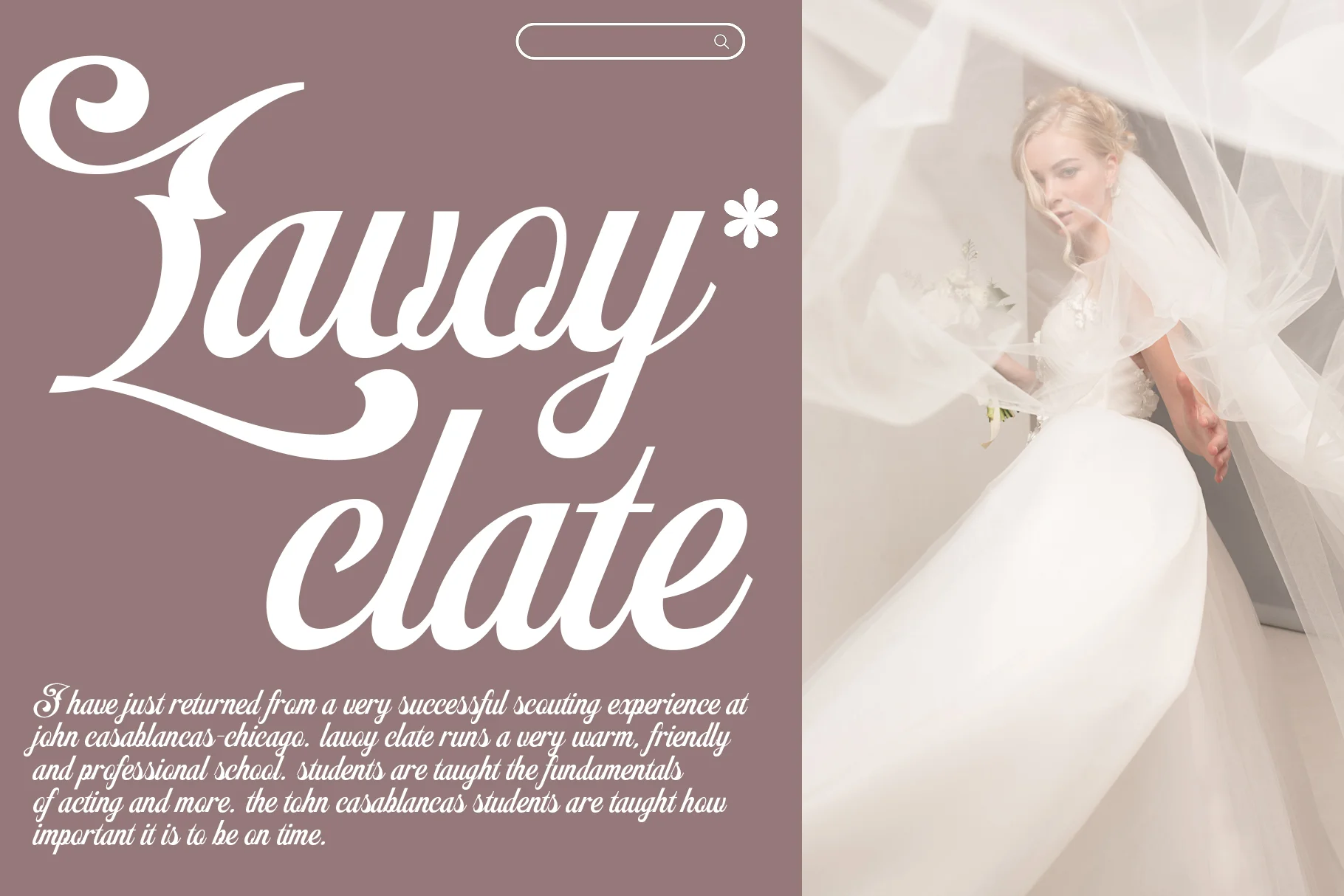
Magical Summer
Magical Summer is a very elegant, highly ornate, and flowing script font, ideal for creating a luxurious, romantic, and classic atmosphere. The letters are heavily adorned with elongated and looping swashes, making the words look like a flowing piece of artwork.
The Magical Summer font is ideal for designs that require a touch of elegance and luxury, such as:
- Invitations & Stationery: Perfect for wedding invitations, greeting cards, or upscale stationery.
- Beauty Product Branding: Especially for cosmetics, perfumes, or spa products.
- Editorial Design: For titles in fashion or lifestyle magazines.
- Logos & Merchandise: For brands aiming to convey a premium, romantic, or vintage style.